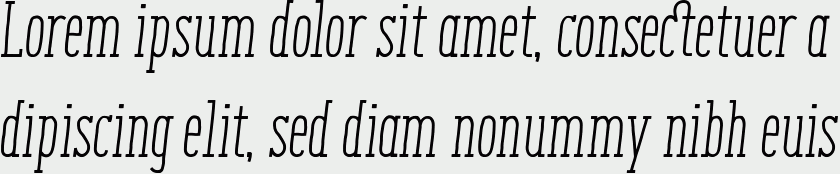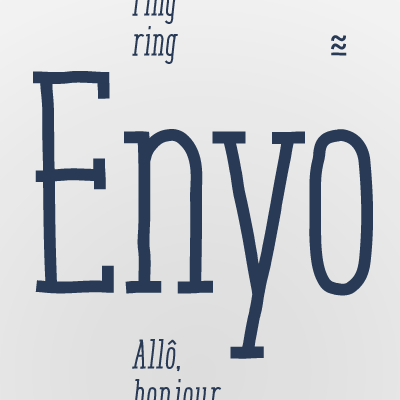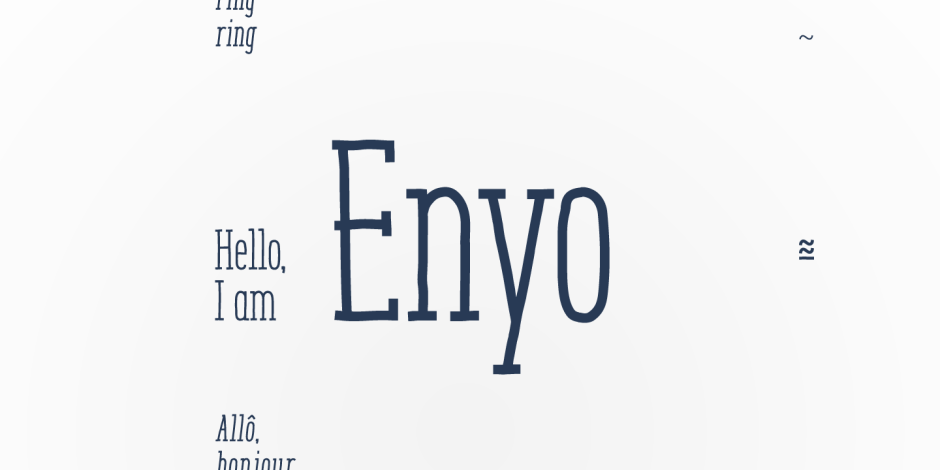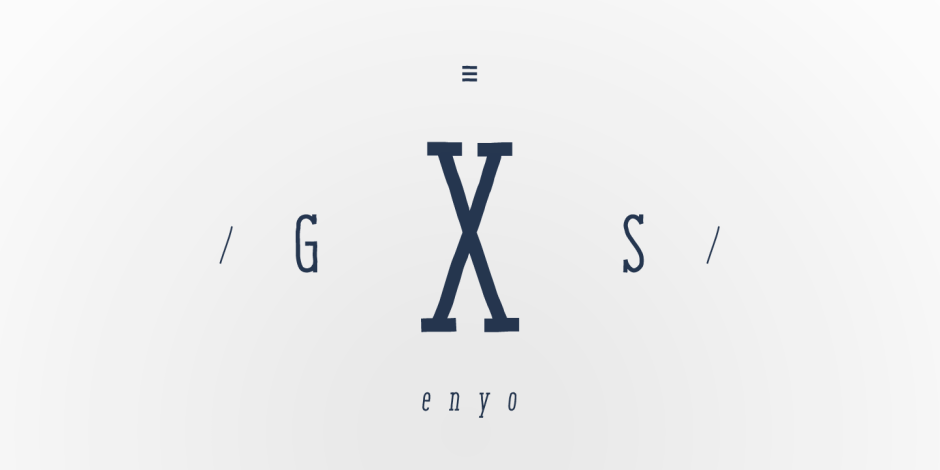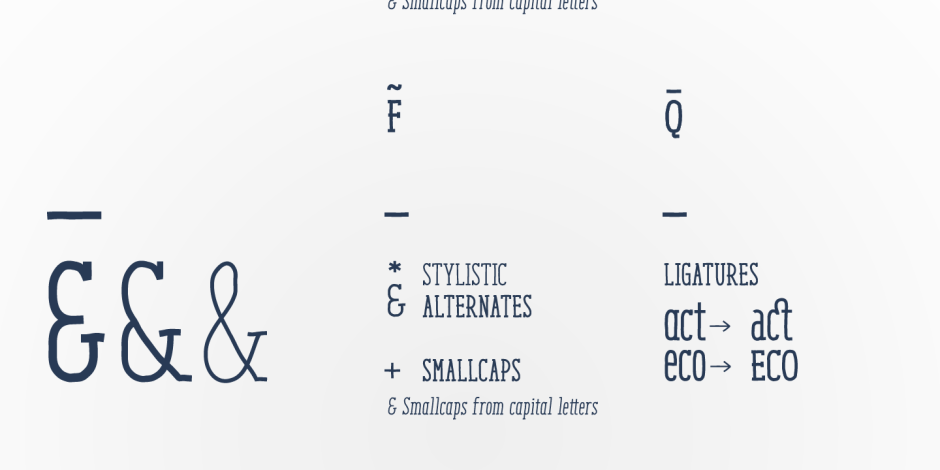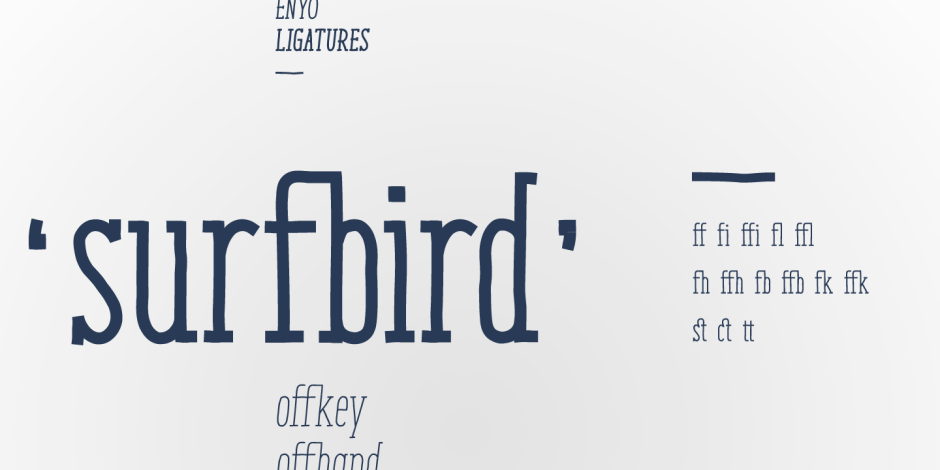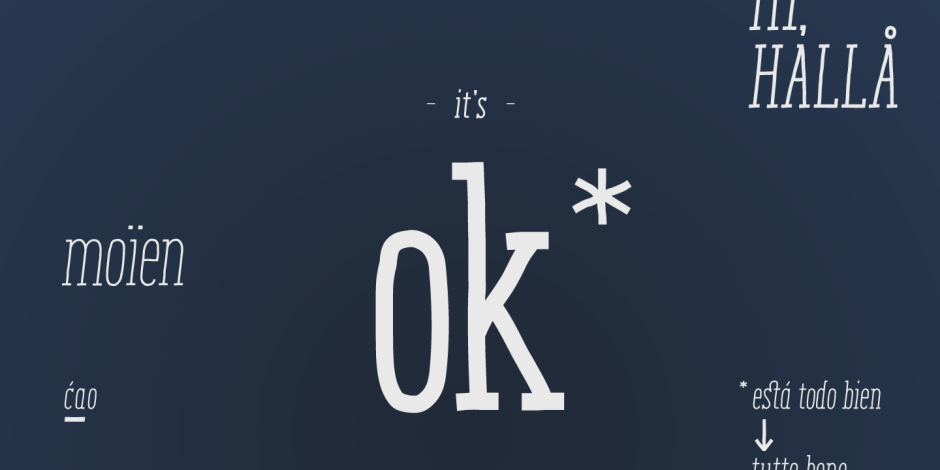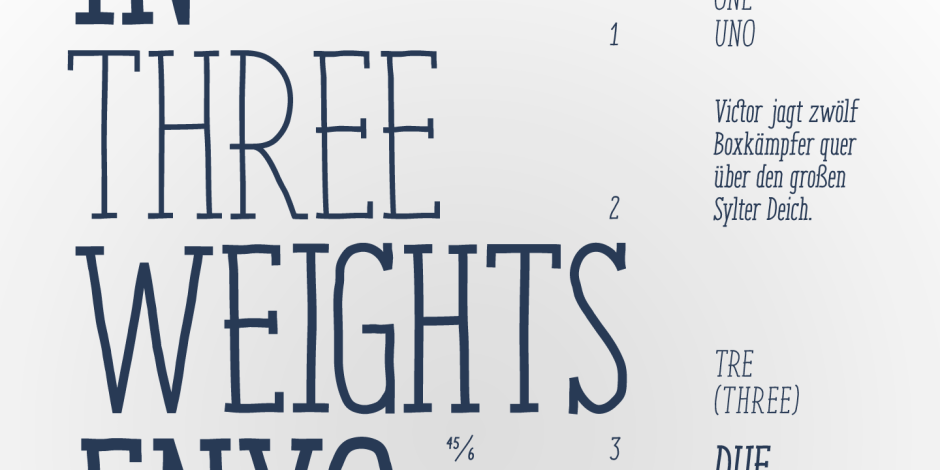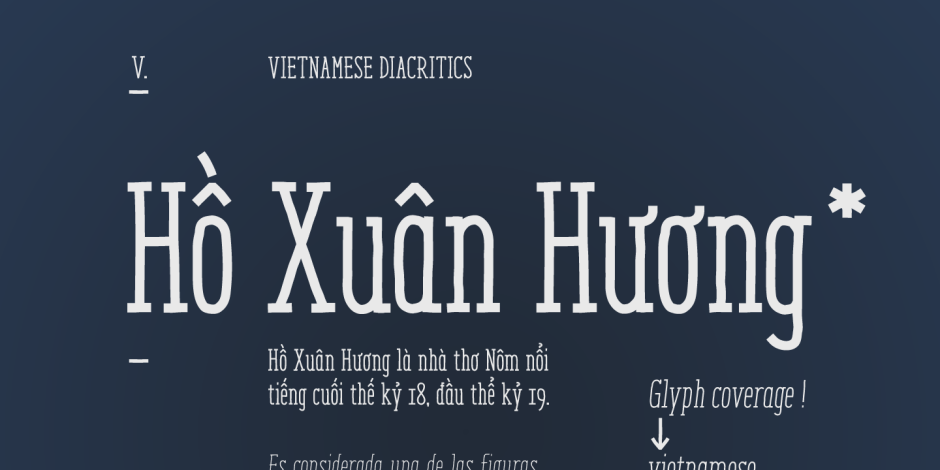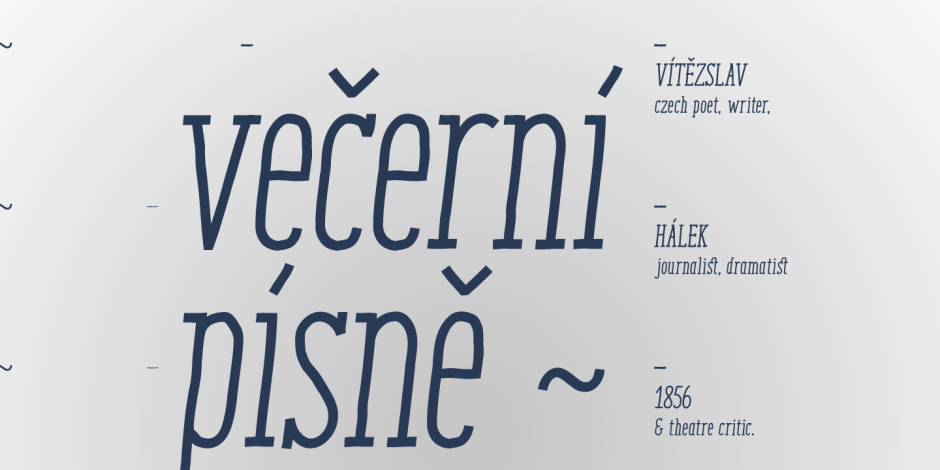
ENYO Slab
/ ENYO Slab Regular Italic
Enyo is a decorative, display, serif handwritten font. This font will provide an informal look to your work! It can be used for small ammount of text, and specially for display usage because of its glyph quality.
Enyo offers OpenType features, including ligatures, alternates, smallcaps, scientific superior/inferior figures, oldstyle figures, fractions, slashed zero, and kerning.
This handwritten font also has a large glyph coverage.
Enyo offers OpenType features, including ligatures, alternates, smallcaps, scientific superior/inferior figures, oldstyle figures, fractions, slashed zero, and kerning.
This handwritten font also has a large glyph coverage.